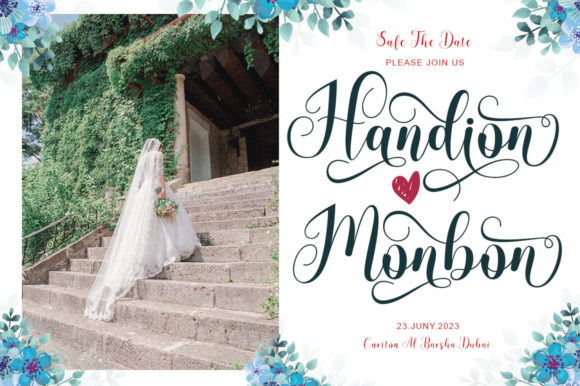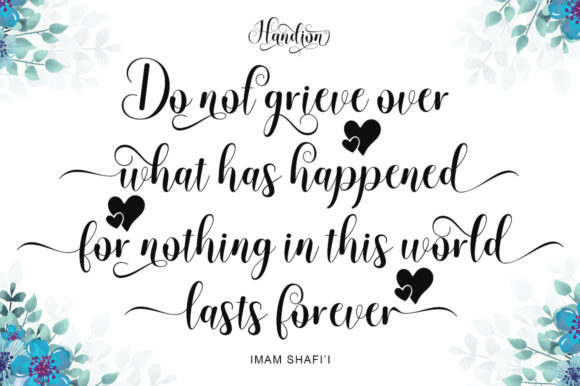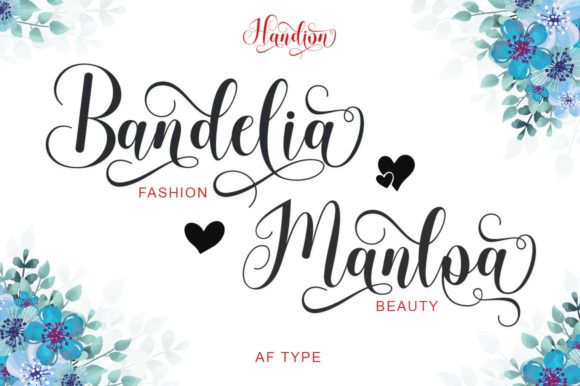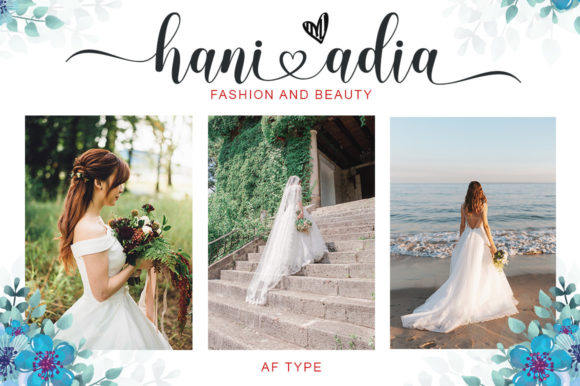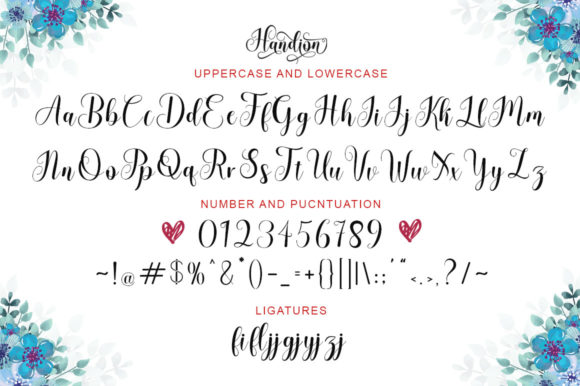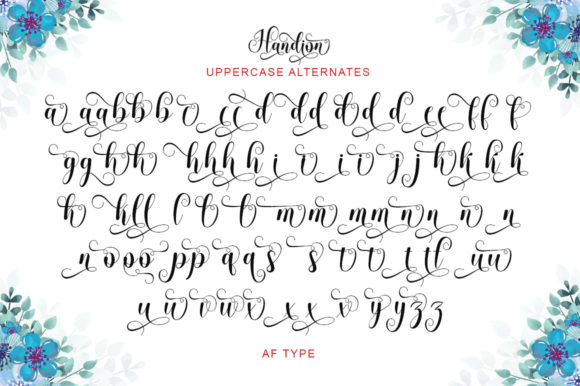
Discover the Elegance of Handion Font: Elevate Your Designs with a Timeless Touch
In the world of typography, fonts play a crucial role in conveying messages, expressing emotions, and creating lasting impressions. For designers, crafters, and anyone looking to add a personal touch to their projects, the right font can make all the difference. This is where Handion Font comes into play – a stunning, flowing handwritten font that is about to revolutionize your design endeavors. With its elegant touch and incredibly distinct style, Handion is set to become your new favorite companion in creating spectacular designs.
The Charm of Handion Font
Handion Font is not just any ordinary font; it’s a masterpiece of modern typography, designed to bring a touch of sophistication and elegance to your projects. Its flowing, handwritten style exudes a sense of warmth and personality, making it perfect for a wide range of applications, from creative crafts to professional branding. Whether you’re working on a logo, a website, a poster, or any other design project, Handion Font is sure to leave a lasting impression on your audience.
Key Features of Handion Font
- Elegant and Timeless Style: Handion boasts an incredibly distinct and timeless style that will set your designs apart from the rest.
- PUA Encoded: This font is PUA (Private Use Area) encoded, which means you can easily access all the glyphs and swashes, giving you the flexibility to create unique and intricate designs.
- Handwritten with a Flowing Touch: The font’s flowing, handwritten style adds a personal and dynamic touch to your projects, making them more engaging and captivating.
- Perfect for Various Projects: From creative crafts to professional designs, Handion Font is versatile enough to be used in a multitude of applications.
Why Choose Handion Font?
With the vast array of fonts available today, why should Handion Font be your go-to choice? The answer lies in its unique blend of elegance, versatility, and ease of use. Here are a few reasons why designers and crafters are falling in love with Handion:
- Unique and Distinctive: In a sea of generic fonts, Handion stands out with its distinctive style, ensuring your designs are always noticed.
- Timeless Appeal: Unlike trendy fonts that may quickly go out of style, Handion’s classic and elegant design ensures it remains relevant for years to come.
How to Make the Most of Handion Font
- Experiment with Swashes: Take advantage of the font’s swashes to add flair and personality to your text.
| Font Name | Handion Font |
| Author | AF Type |
Handion Font is more than just a font; it’s a design companion that can elevate your projects to new heights. With its elegant, flowing style and the ease of use provided by PUA encoding, it’s an excellent choice for designers and crafters looking to add a timeless touch to their work. Whether you’re aiming to create stunning visual designs, engaging content, or simply looking for a font that resonates with your personal style, Handion is sure to exceed your expectations. So, fall in love with Handion’s distinct style and let it guide you in creating spectacular designs that leave a lasting impression.